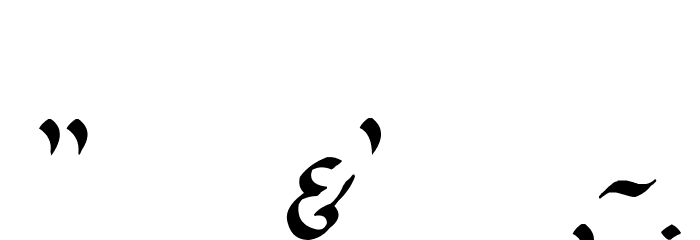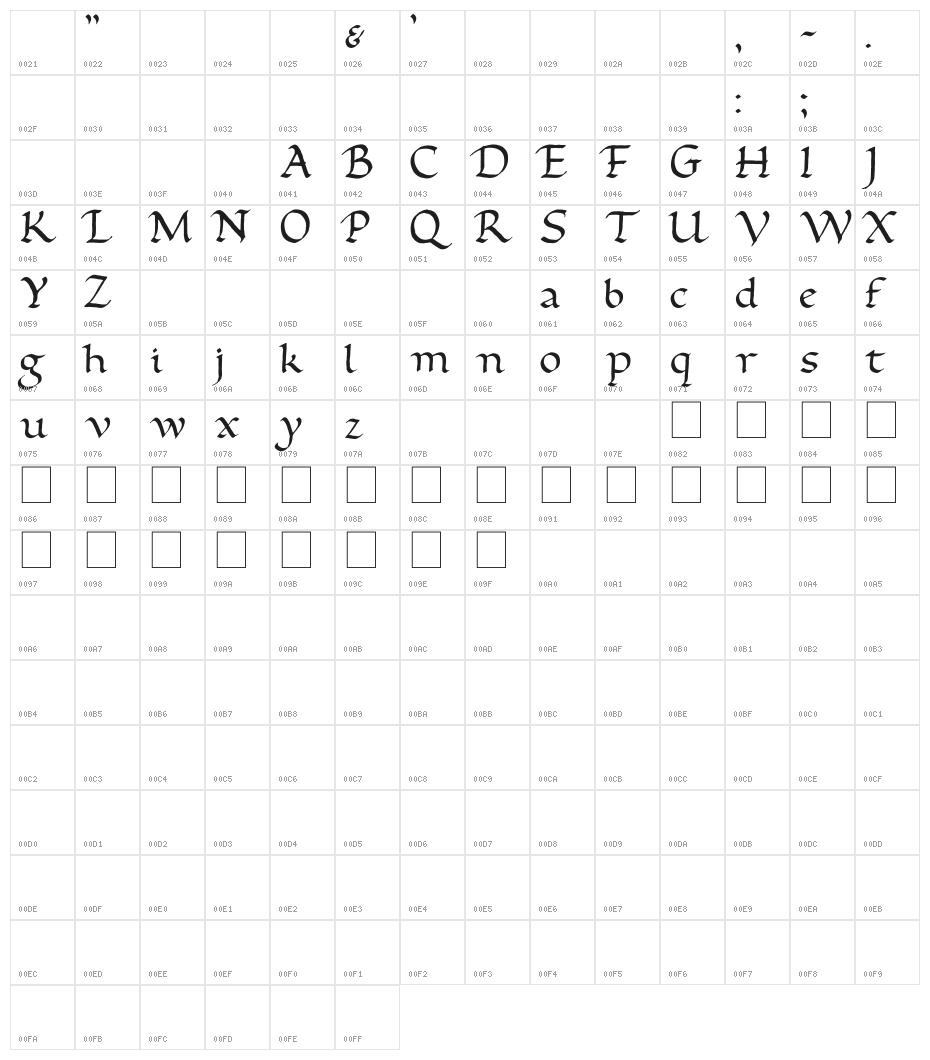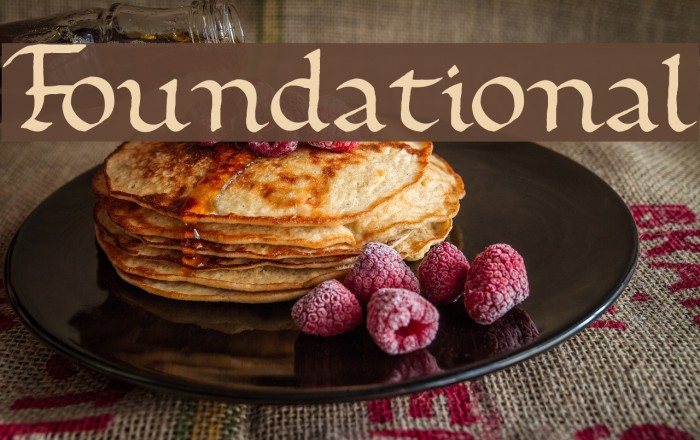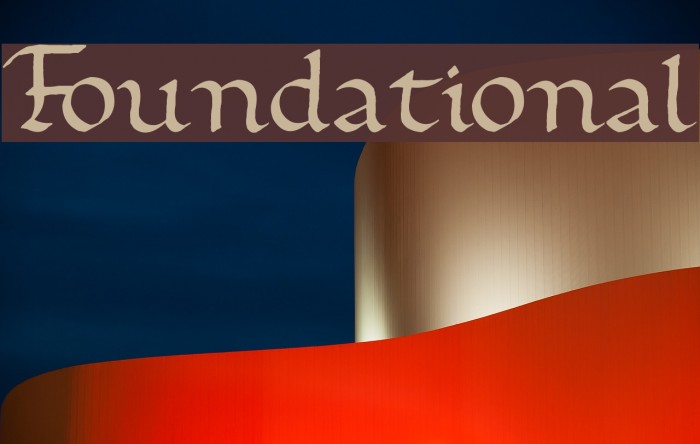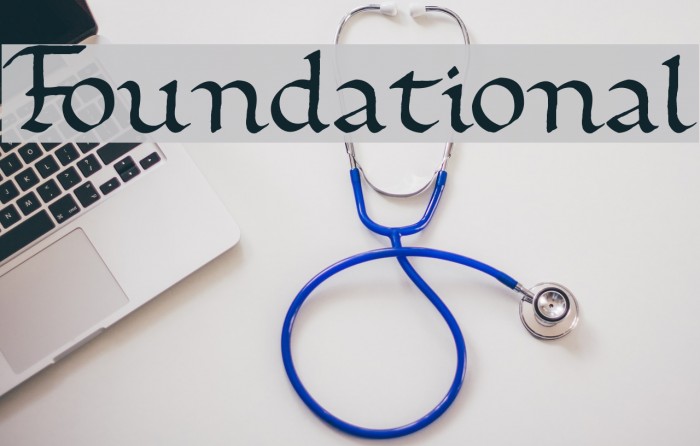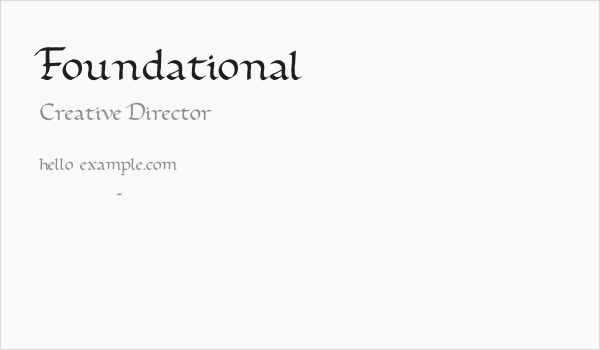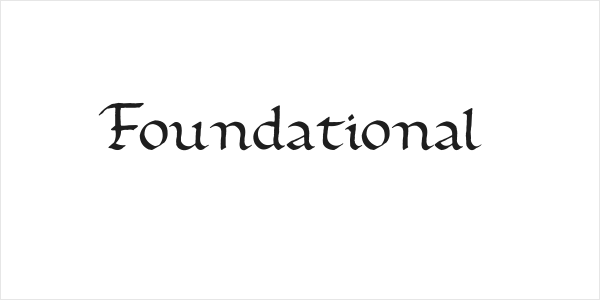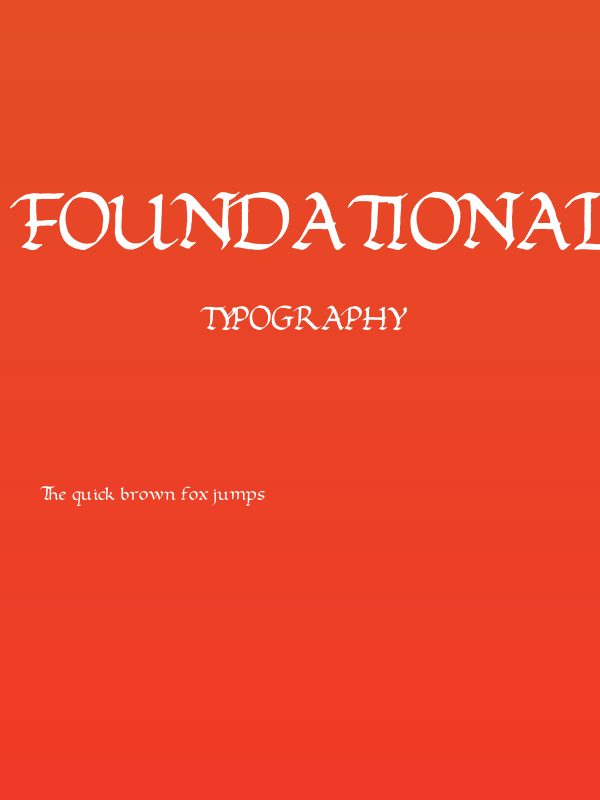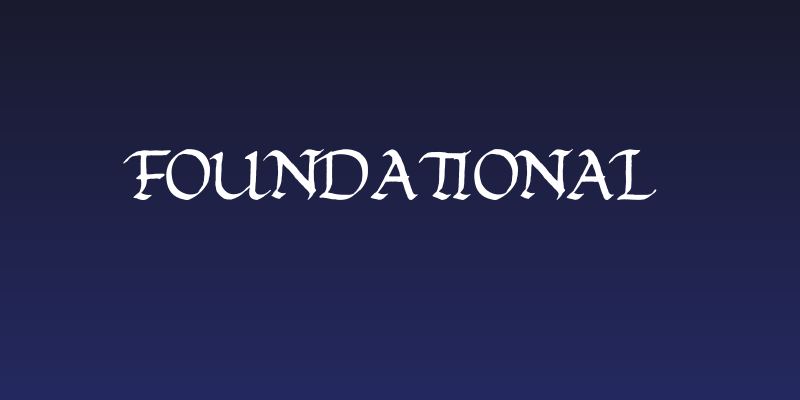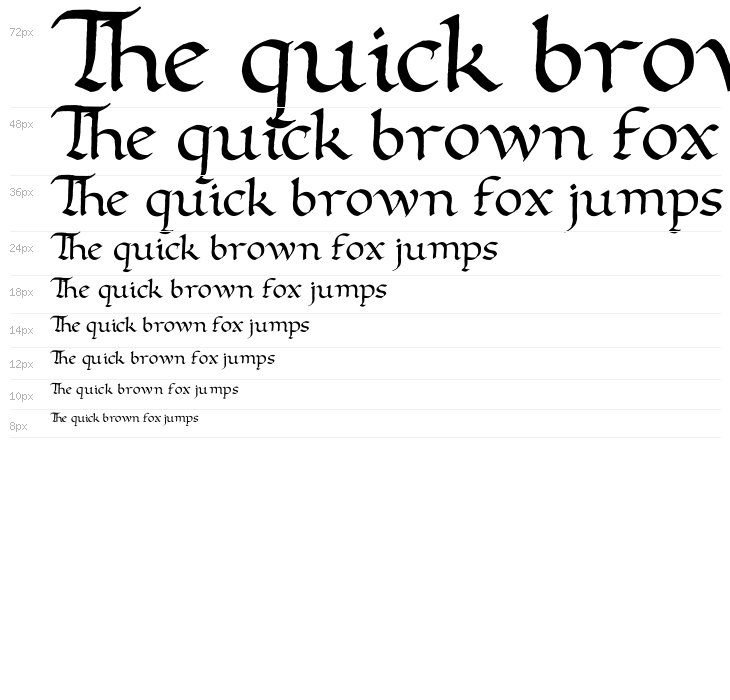
Foundational Font
Foundational Description
This font features a classic and elegant style reminiscent of traditional calligraphy. The characters exhibit a flowing, cursive design with a slight slant, giving them a dynamic and sophisticated appearance. The strokes are varied in thickness, providing a medium contrast that enhances readability while maintaining an artistic flair. The uppercase letters are bold and prominent, while the lowercase letters are more delicate, creating a harmonious balance. Special characters like the ampersand and quotation marks are intricately designed, adding to the font's decorative appeal. Overall, this font exudes a timeless charm suitable for formal and creative applications.